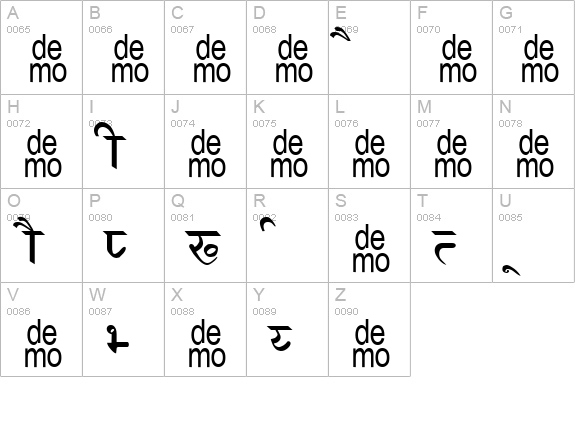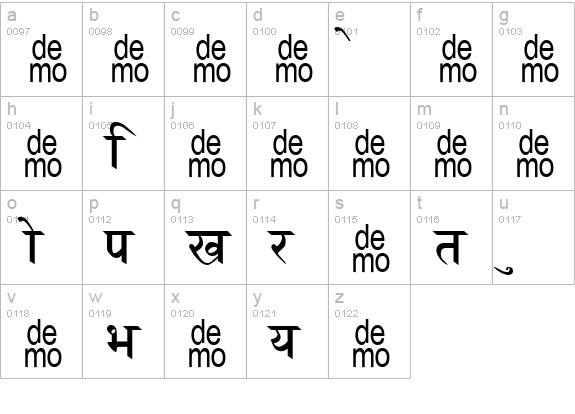
Marathi Saral-DEMO Font Details
Marathi Saral-DEMO font is a beautiful and versatile typeface that brings a touch of elegance and sophistication to any design. With its clean lines and balanced proportions, this font is perfect for both digital and print projects. What sets Marathi Saral-DEMO font apart is that it is not only visually appealing, but also free to use. That's right, you can download and use this font without any cost or restrictions. It is freely available to download at FontsMarket.com, a trusted source for high-quality fonts. Whether you are creating a logo, designing a website, or working on a brochure, Marathi Saral-DEMO font will enhance your project with its distinct style. Its legibility and readability make it suitable for a wide range of applications, from headlines to body text. This font features a comprehensive character set, including uppercase and lowercase letters, numerals, punctuation marks, and special characters. It is compatible with various software and operating systems, ensuring seamless integration into your design workflow. With Marathi Saral-DEMO font, you have the freedom to express your creativity without any limitations. Add a touch of sophistication to your designs with this elegant and versatile typeface. Download it for free at FontsMarket.com and elevate your projects to new heights.